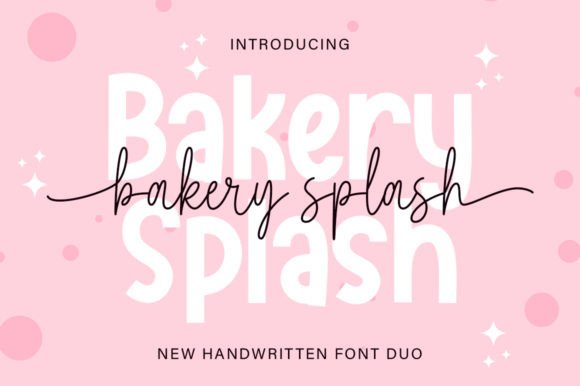
Bakery Splash Duo Font: Elevate Your Designs with a Romantic Touch
In the world of typography, fonts play a crucial role in conveying emotions and setting the tone for various designs. Whether you’re creating greeting cards, headlines, or any other visual content, the right font can make all the difference. Introducing Bakery Splash Duo Font, a stylish and delicate duo font that combines a sans serif and script font, perfect for adding a romantic touch to your creations.
What is Bakery Splash Duo Font?
Bakery Splash Duo Font is a unique and versatile font that consists of two complementary fonts: a sans serif font and a script font. This duo font is designed to cater to a wide range of applications, from formal to informal designs. The sans serif font offers a clean and modern look, while the script font adds a touch of elegance and sophistication.
Key Features of Bakery Splash Duo Font
- Stylish and Delicate Design: Bakery Splash Duo Font boasts a stylish and delicate design that is sure to capture the attention of your audience.
- Duo Font: The font comes with two complementary fonts: a sans serif font and a script font, allowing you to mix and match to create stunning designs.
- Wide Range of Applications: This font is suitable for a wide spectrum of applications, including greeting cards, headlines, logos, and more.
- Romantic Touch: The font’s elegant design adds a romantic touch to your creations, making it perfect for designs that require a touch of sophistication.
Benefits of Using Bakery Splash Duo Font
Using Bakery Splash Duo Font in your designs offers numerous benefits. Here are a few:
Enhance Your Designs with Elegance
Bakery Splash Duo Font adds a touch of elegance to your designs, making them stand out from the crowd. The font’s delicate design and romantic touch make it perfect for creating stunning visual content.
Versatility at Its Best
The duo font comes with two complementary fonts, allowing you to experiment with different design combinations. You can use the sans serif font for headings and the script font for body text or vice versa.
Easy to Use
Applications of Bakery Splash Duo Font
Bakery Splash Duo Font is a versatile font that can be used in various applications. Here are a few ideas:
Greeting Cards
Create stunning greeting cards for special occasions like weddings, anniversaries, and birthdays. The font’s romantic touch makes it perfect for expressing your feelings.
Headlines and Titles
Use Bakery Splash Duo Font to create eye-catching headlines and titles for your blog posts, articles, or social media content. The font’s elegant design is sure to grab the attention of your audience.
Logos and Branding
Bakery Splash Duo Font can be used to create stunning logos and branding materials for your business. The font’s unique design will help you establish a strong brand identity.
Tips for Using Bakery Splash Duo Font
Here are a few tips to help you get the most out of Bakery Splash Duo Font:
Experiment with Different Combinations
Don’t be afraid to experiment with different font combinations. Try pairing the sans serif font with the script font to create stunning designs.
Adjust Font Sizes and Colors
Adjust font sizes and colors to create visual hierarchy and add depth to your designs.
Use the Font for Both Digital and Print Designs
Bakery Splash Duo Font is suitable for both digital and print designs. Use it to create stunning visual content for your website, social media, or print materials.
In conclusion, Bakery Splash Duo Font is a stylish and delicate duo font that can elevate your designs with a romantic touch. Its versatility, elegance, and ease of use make it perfect for a wide range of applications. Whether you’re creating greeting cards, headlines, or logos, this font is sure to make your designs stand out. So why wait? Get Bakery Splash Duo Font today and take your designs to the next level!